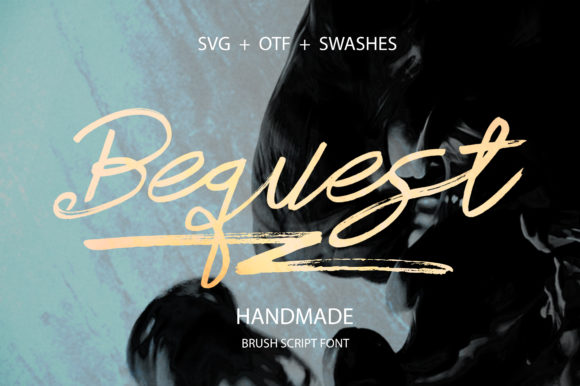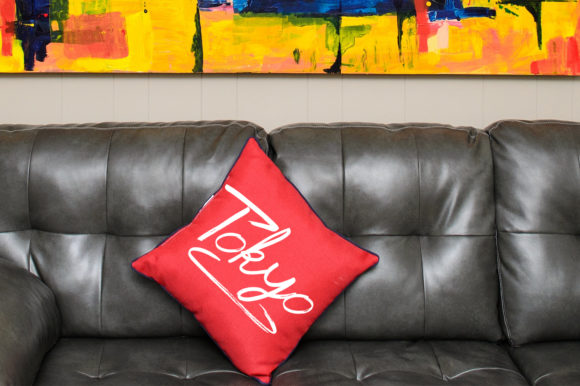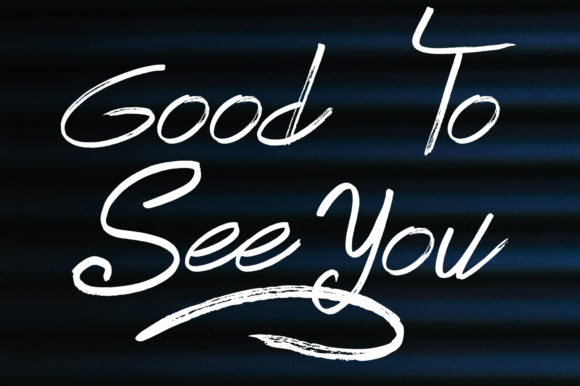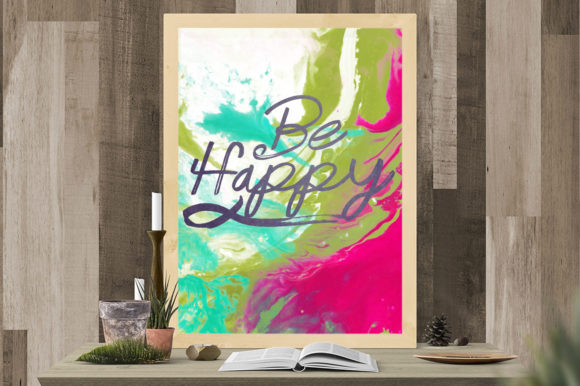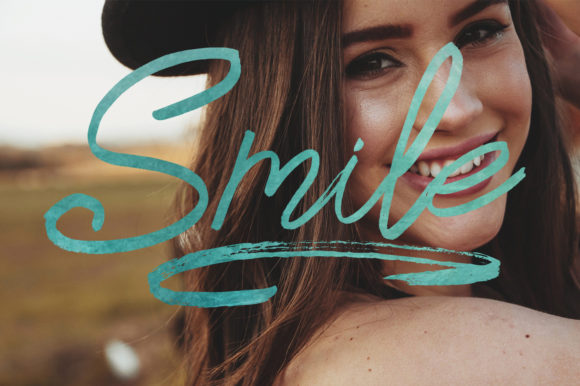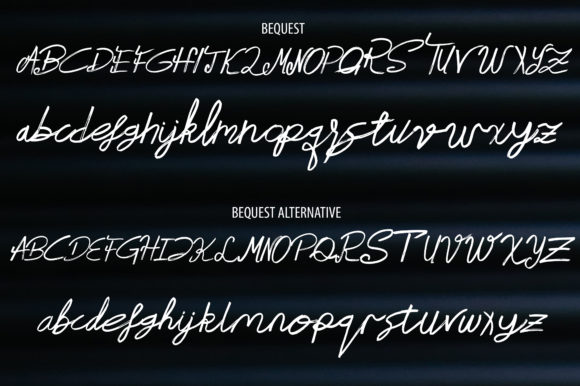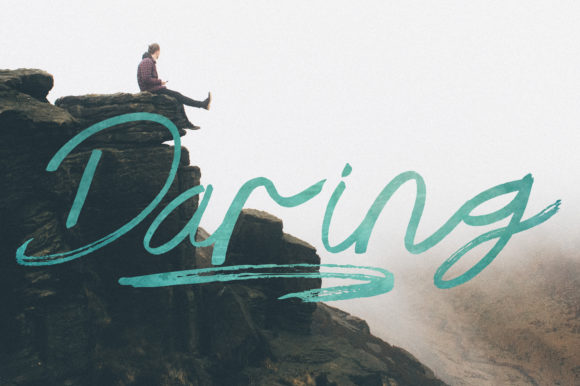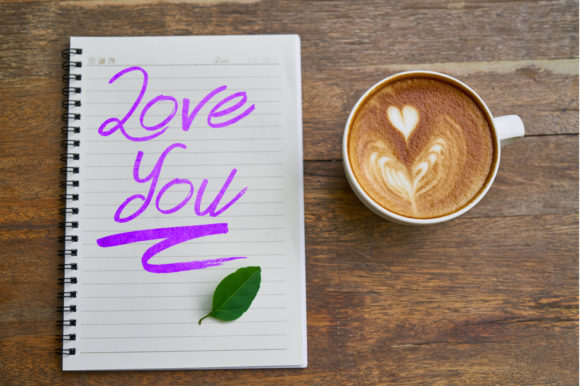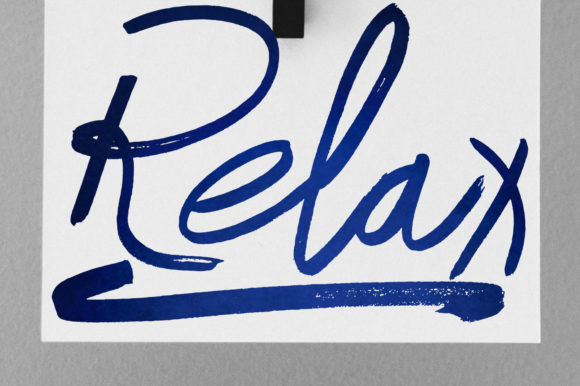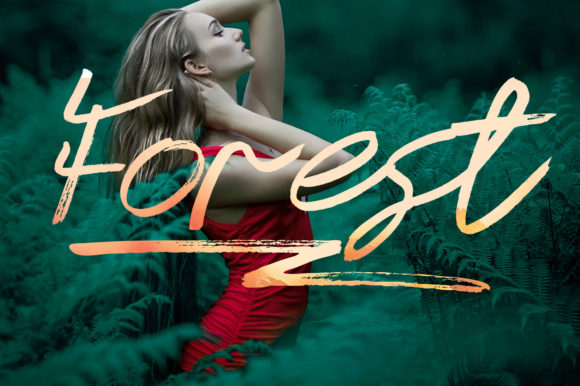
HomeScript FontsBequest Font Script Fonts Bequest Font FacebookXPinterestWhatsApp Bequest Font Poster 2 Bequest Font Poster 3 Bequest Font Poster 4 Bequest Font Poster 5 Bequest Font Poster 6 Bequest Font Poster 7 Bequest Font Poster 8 Bequest Font Poster 9 Bequest Font Poster 10 Bequest Font Poster 11 Bequest Font Poster 12 Bequest Font Poster 13 Bequest Font Poster 14 Bequest Font Poster 15 About Bequest Font Bequest is a uniquely crafted handwritten font that will add a feel of authenticity to any creative idea. DOWNLOAD ON CREATIVE FABRICAThis font is sold and delivered by Creative Fabrica. Font Canyon may earn a commission if you buy through this link. People also explored Radiant Font Break Font Custome Font Simple Black Font Rostallia Font Bridge Font Malahayati Script Font Balfa Hode Font Waiters Font 278 0 TagsBequest Font Previous articleForest FontNext articleSolo Font LEAVE A REPLY Cancel reply Comment: Please enter your comment! Name:* Please enter your name here Email:* You have entered an incorrect email address! Please enter your email address here Website: Save my name, email, and website in this browser for the next time I comment. Personal Use Free Orchid Personal Use Free Read more about this font Boston Traffic Personal Use Free Read more about this font Sabina Illusion Personal Use Free Read more about this font Adelia Font Personal Use Free Read more about this font BLOG Elegant Wedding Invitation Fonts – Handwritten & Script Fonts Elegant Wedding Invitation Fonts Your wedding day is one of the most important moments of your life, and every detail matters—including your invitation design. Our... 5 Fonts That Will Dominate Design Trends in 2026 How to Cut Any Font on Cricut: Convert a Font to SVG (Free) Transform Your Website: Elevate Your Typography with 7 Best Web Font Generators